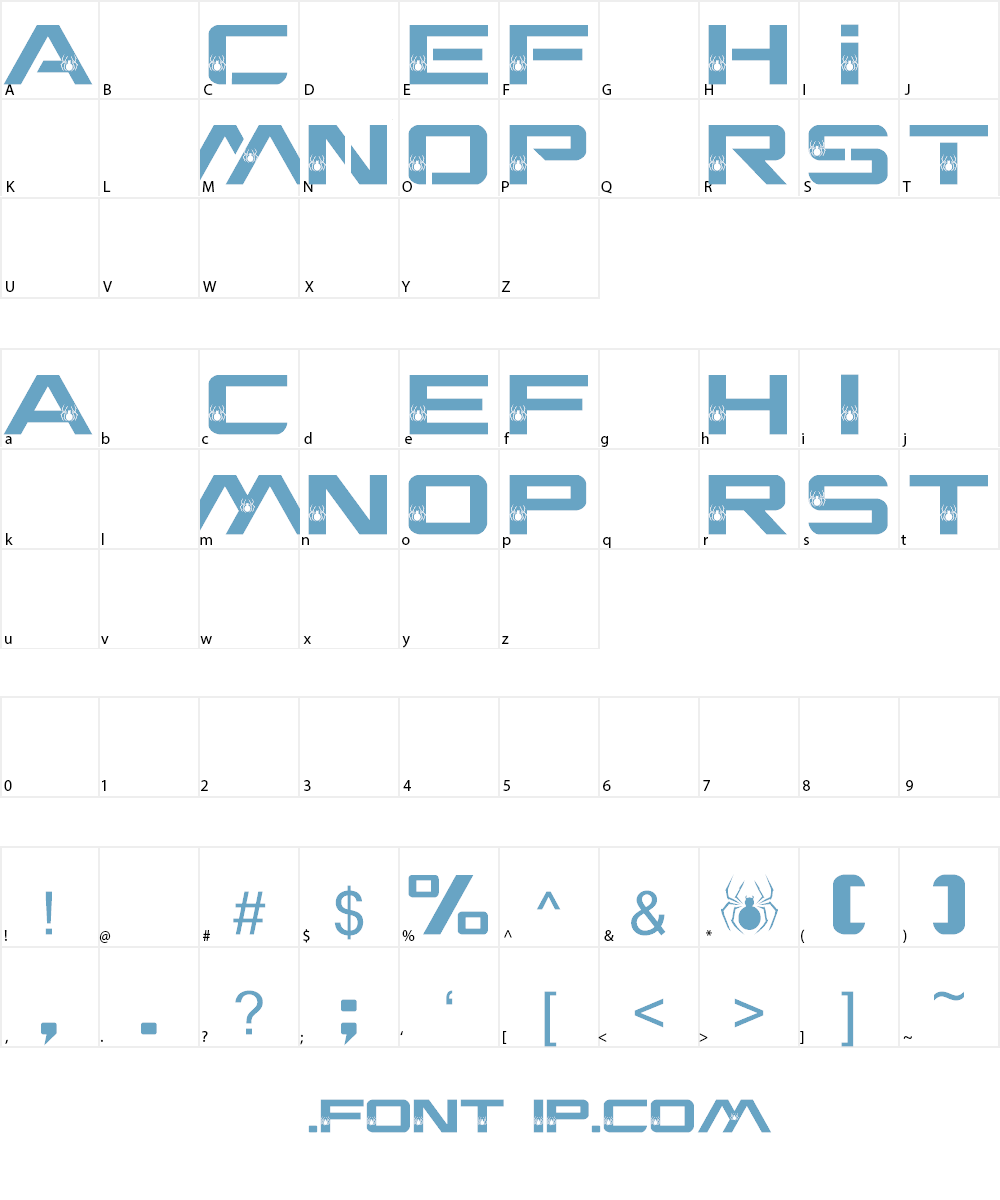
Font based on the Sci-Fi film of a similar name with a low mean line, wide stems and rounded corners. The capitals have broken junctions where the stems join. It's time to escape from the planet Earth as this Fan-Font is build on hope!